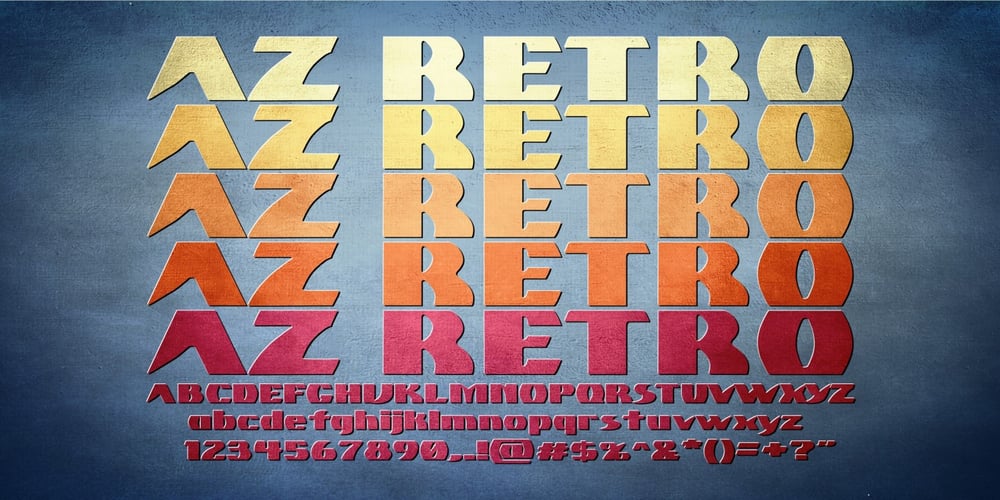
AZ Retro Font Family was designed by published by Artist of Design. AZ Retro contains 1 styles and family package options. AZ Retro was inspired from a need to develop a bold retro 70’s style headline. This font was designed for use as a dispaly headline or sub headline.